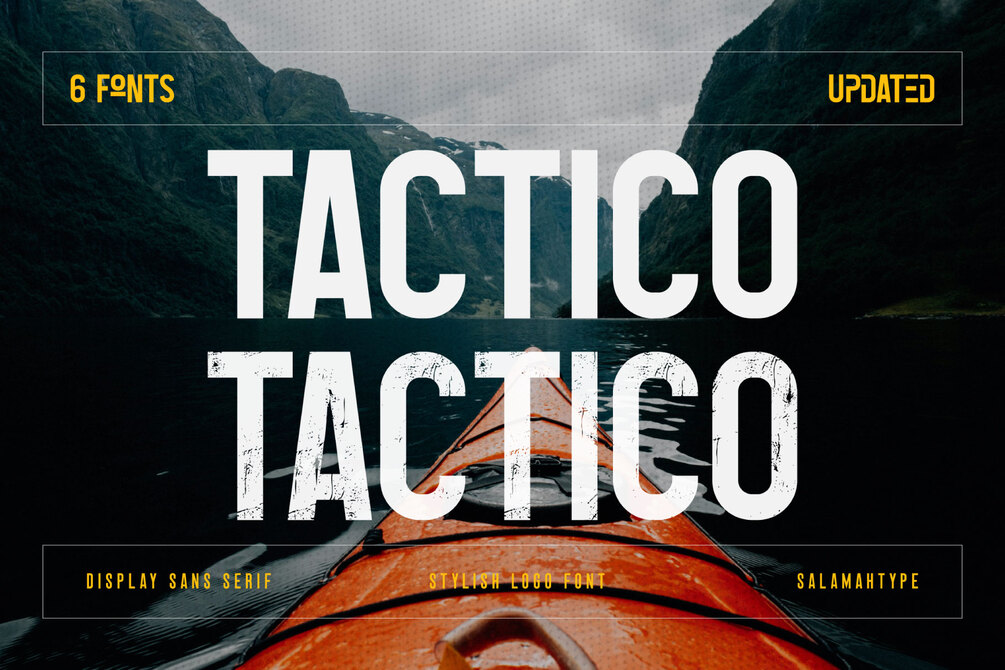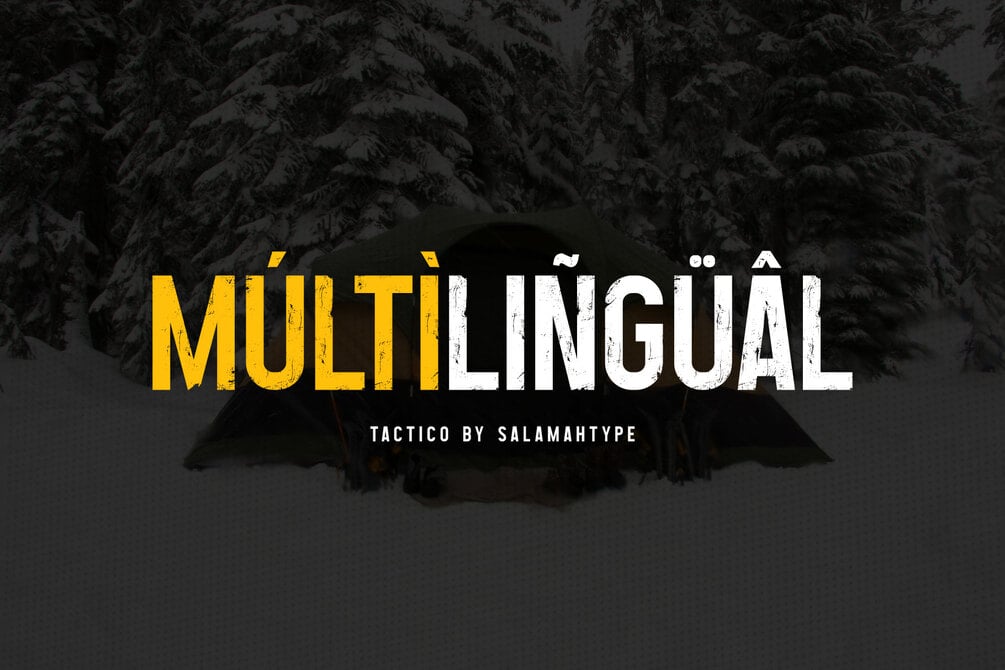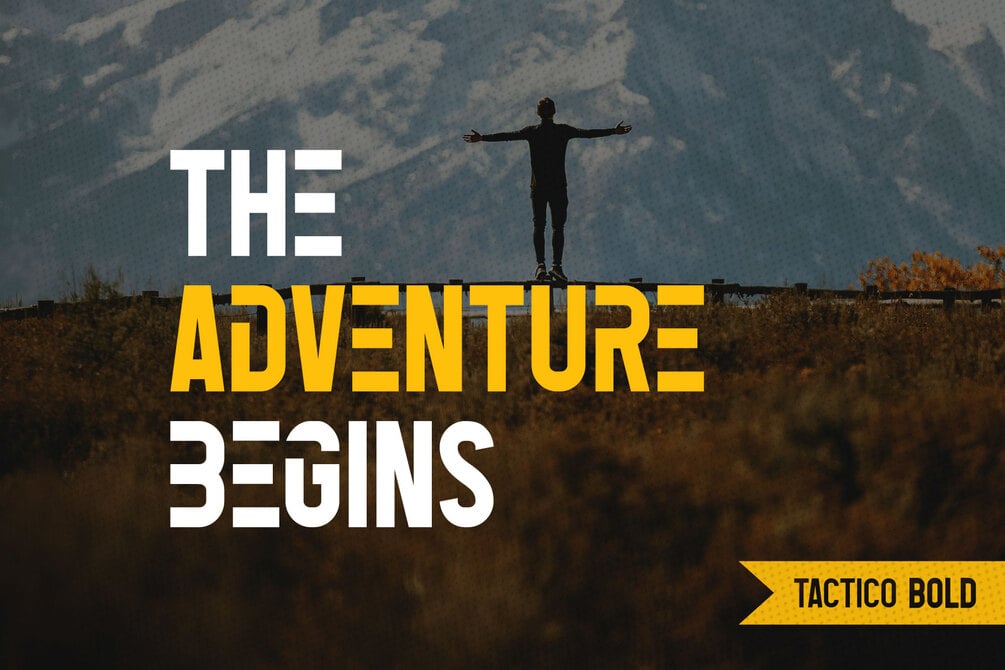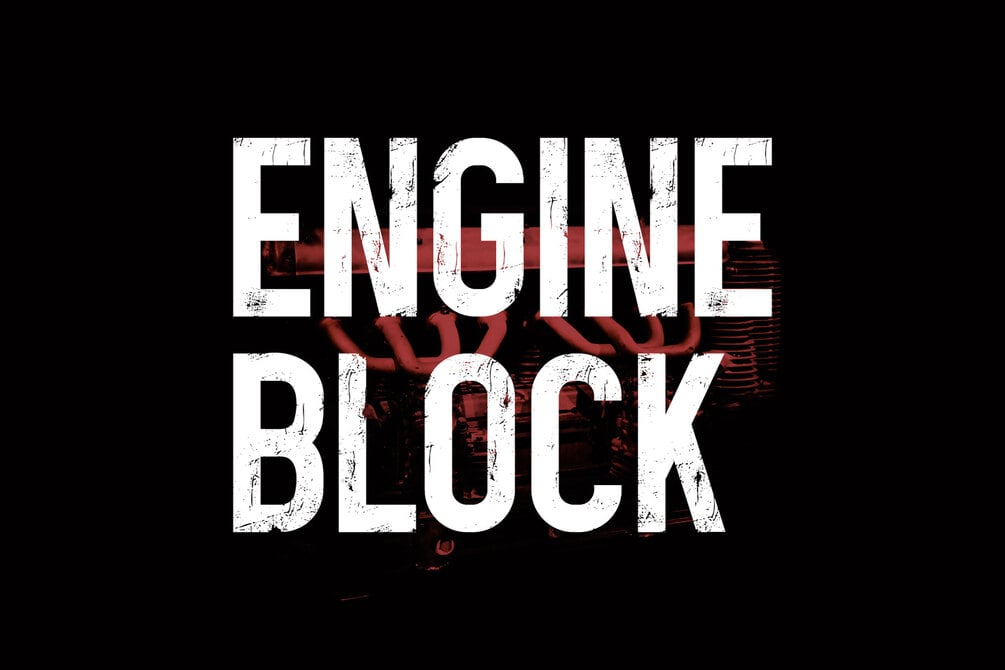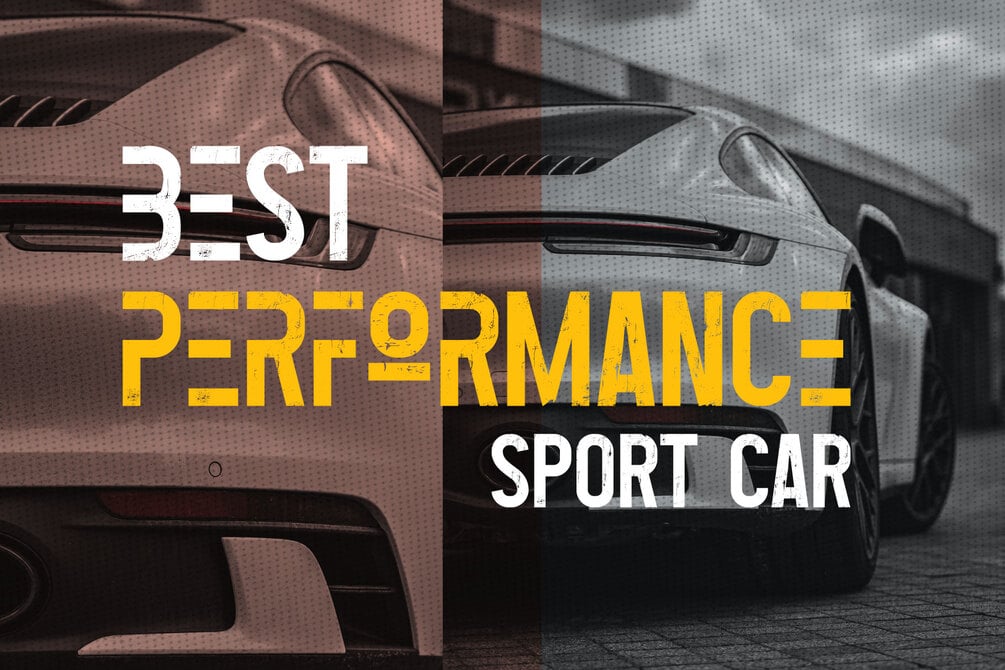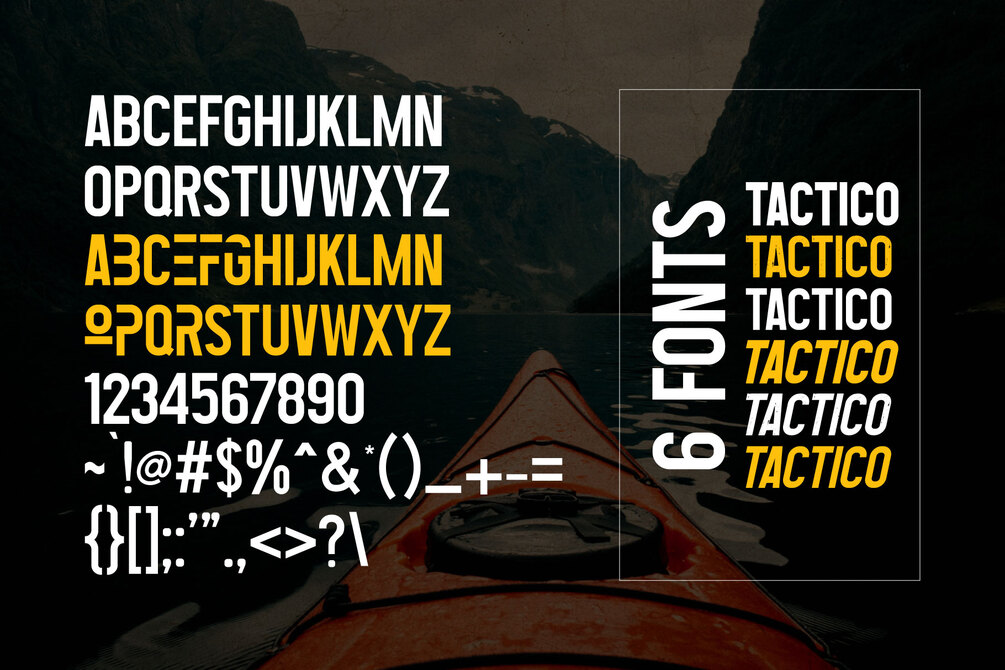
Tactico - Grunge Vintage Font
Proudly introducing Tactico, an all-caps sans serif font family crafted for versatility and impact. Featuring Regular, Bold, and Grunge/Distressed styles, Tactico strikes the perfect balance between clean sophistication and rugged charm. Whether you’re working on logos, branding projects, or product packaging, this font adds a professional yet dynamic edge to your designs. Its modern and eye-catching aesthetic makes it ideal for posters, magazines, presentations, and so much more, ensuring your work stands out from the crowd.
• Uppercase/allcaps font with 6 styles
• Number, symbol and punctuation
• Multilingual support
• Addition of several font characters and kerning improvements
• Uppercase displays regular characters
• Lowercase displays styled characters
• Contains 234 glyphs